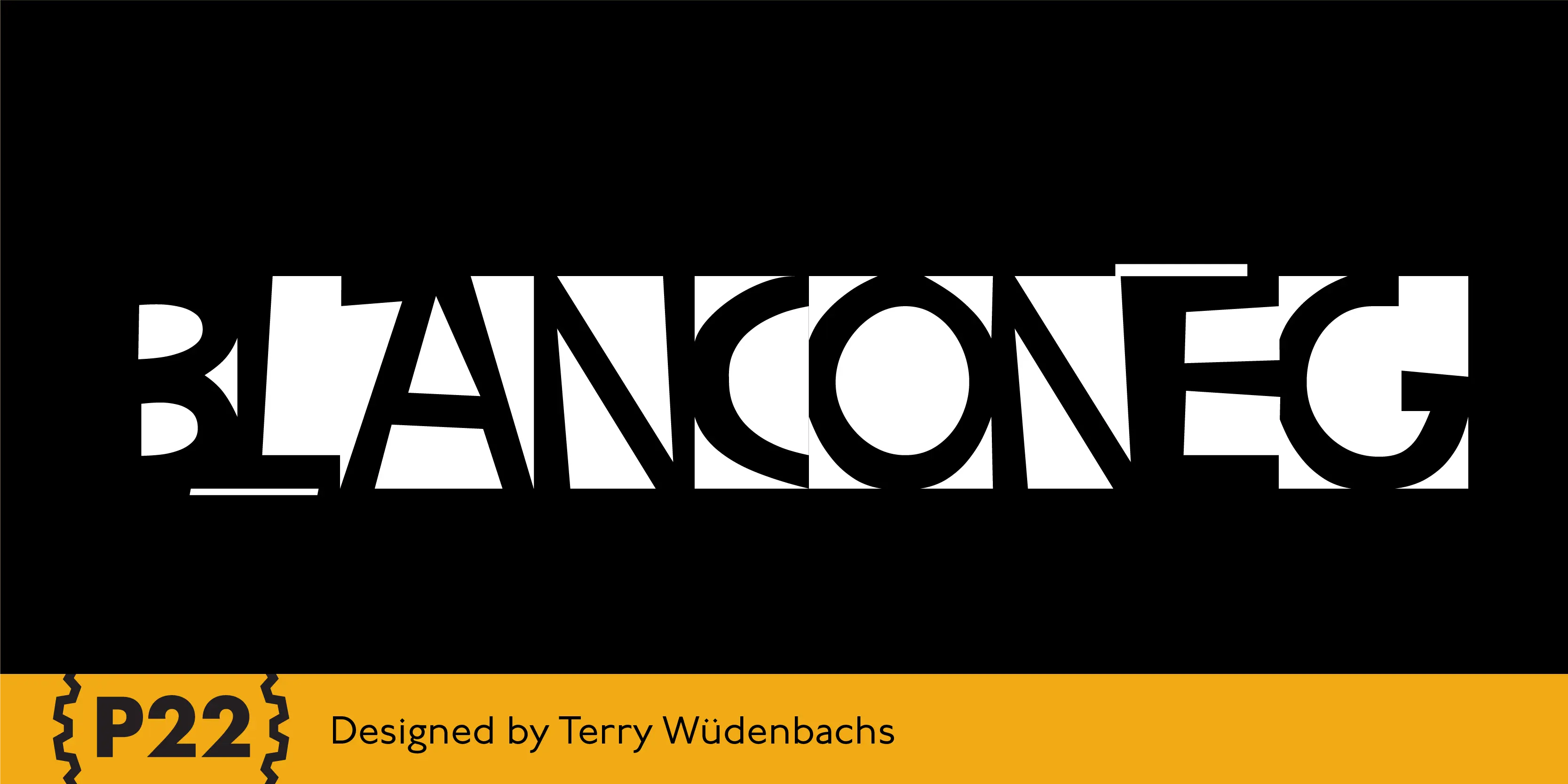
BlancoNeg Font Family
BlancoNeg
BlancoNeg was inspired by the lettering of Saul Bass with some thoughts of Op-Art. Each character relies on the positive and negative spaces of its neighboring letters to help define its own shape. This font is casual with the look of cut out paper forms.
Contextual Alternates